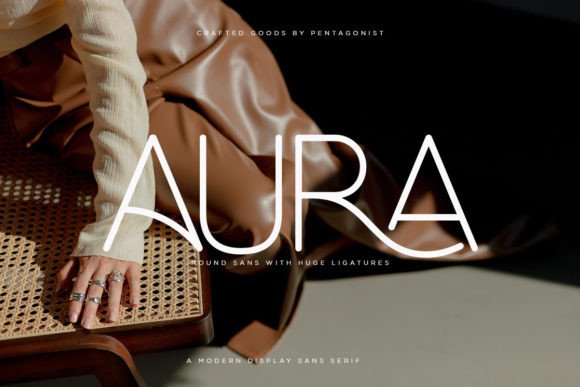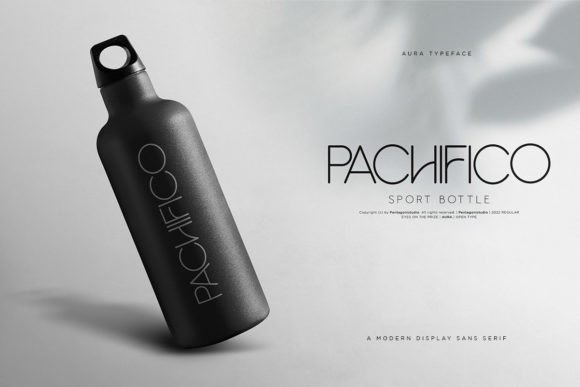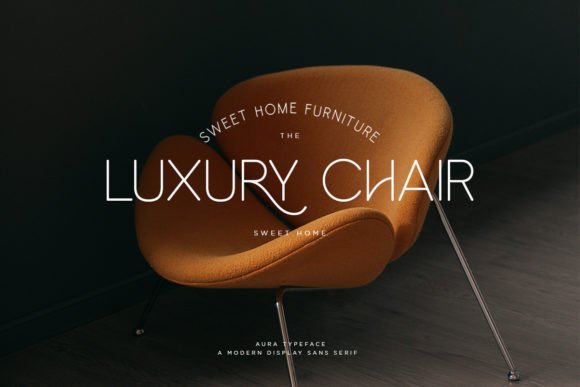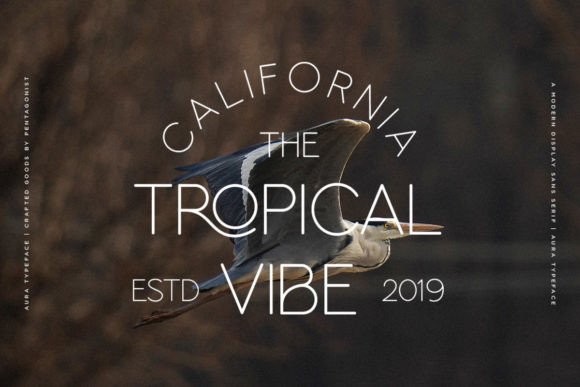
Aura Font: Modern Sans Serif for Sleek Logo Design & Branding
About the Aura Font
Unleash your creativity with Aura Font, a versatile font perfect for a wide range of applications. Aura is a modern, round sans-serif font with sleek characters and huge ligatures. It is nice and easy to read and can make any text stand out! This font is PUA encoded, which means you can access all of the glyphs and swashes with ease!
Aura’s modern, rounded forms make it ideal for headlines, short body text, and branding applications where a clean, friendly aesthetic is desired. It excels in logo design, short marketing slogans, and packaging, particularly for products targeting a younger, contemporary audience. Avoid using Aura for large blocks of text or UI elements; its legibility suffers in extended passages.
Its personality is best described as approachable yet sophisticated. To complement this, pair Aura with a geometric sans-serif like Montserrat for a balanced, modern feel, or a classic serif like Garamond for a touch of elegant contrast. A playful script font like Pacifico could add a hand-crafted touch to projects needing a more whimsical approach.
Consider using Aura’s extensive ligature set to add visual interest to shorter text segments—this feature is especially beneficial for emphasizing key phrases within branding and marketing materials.